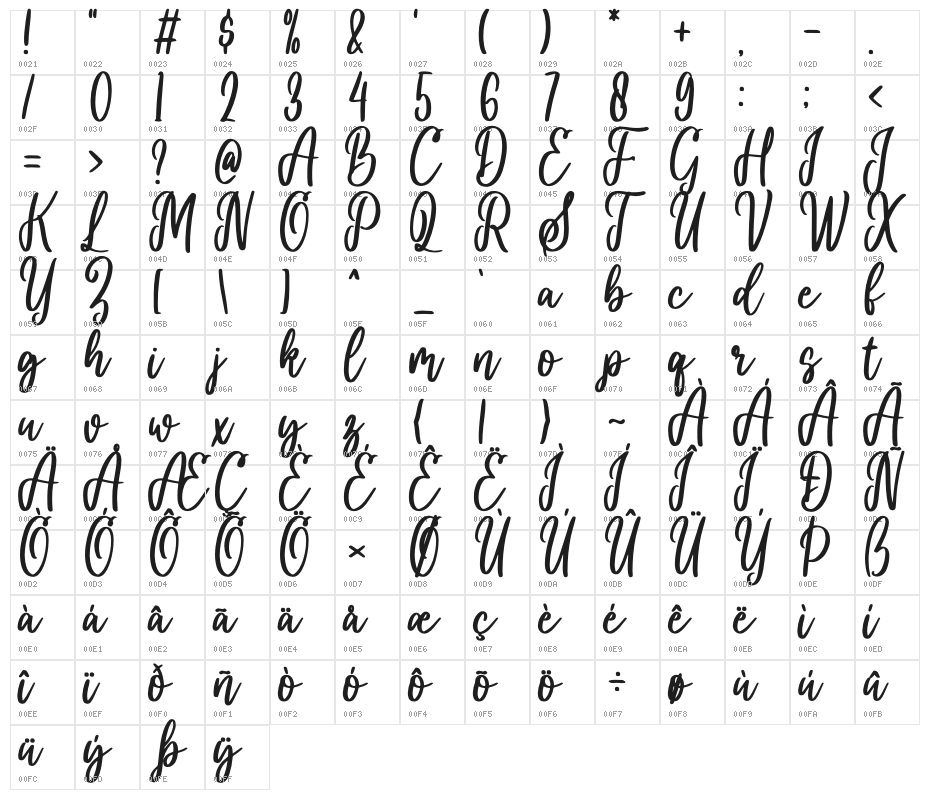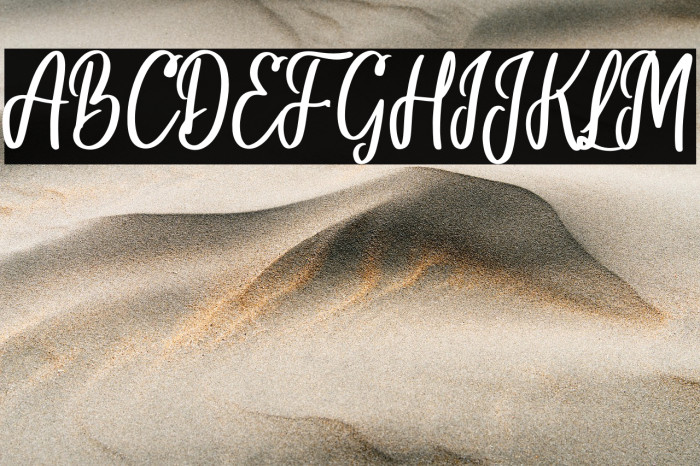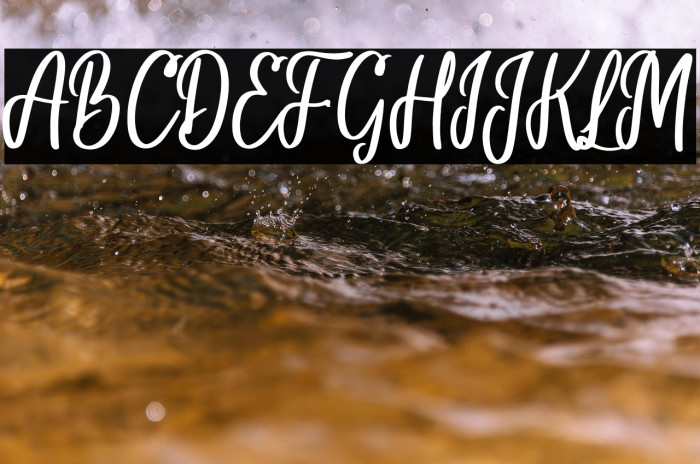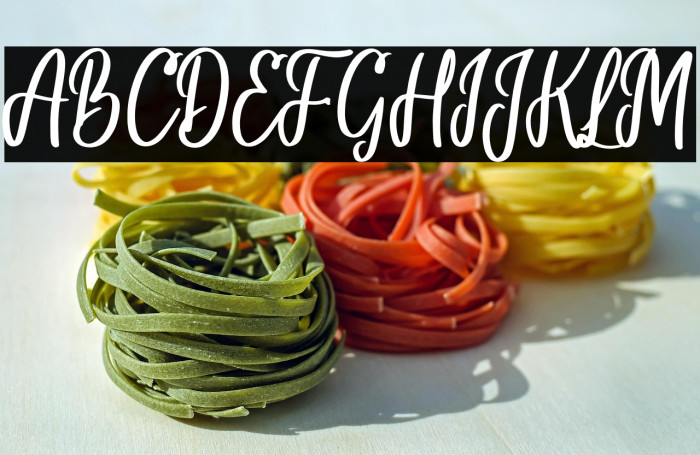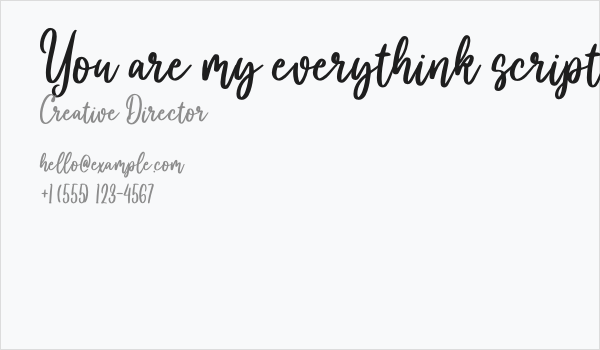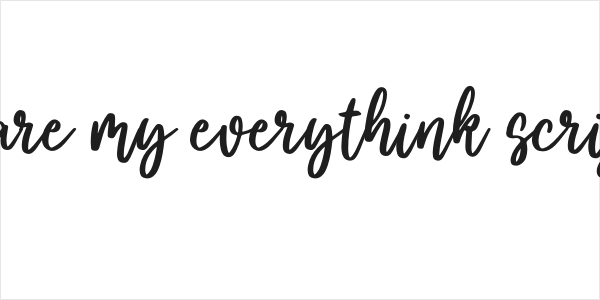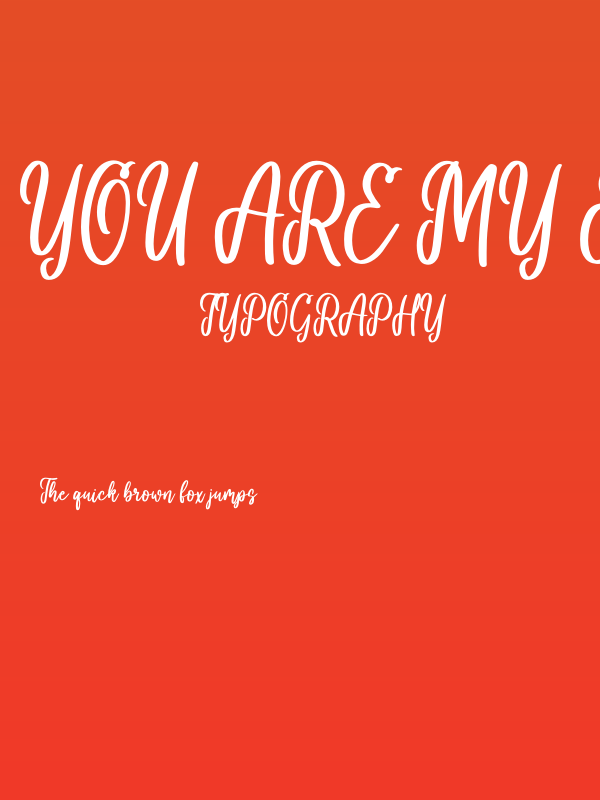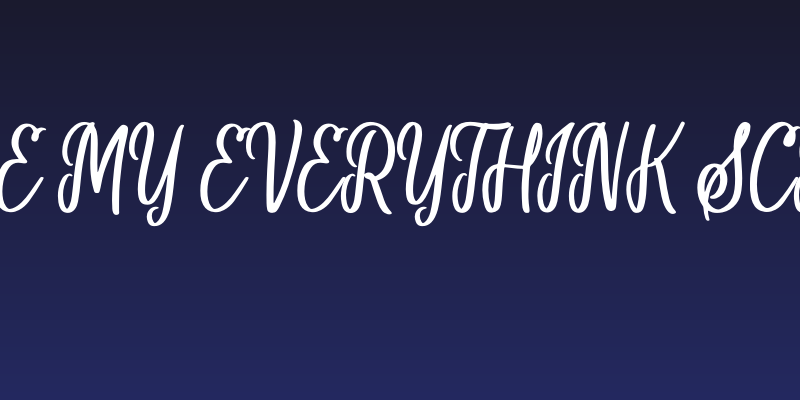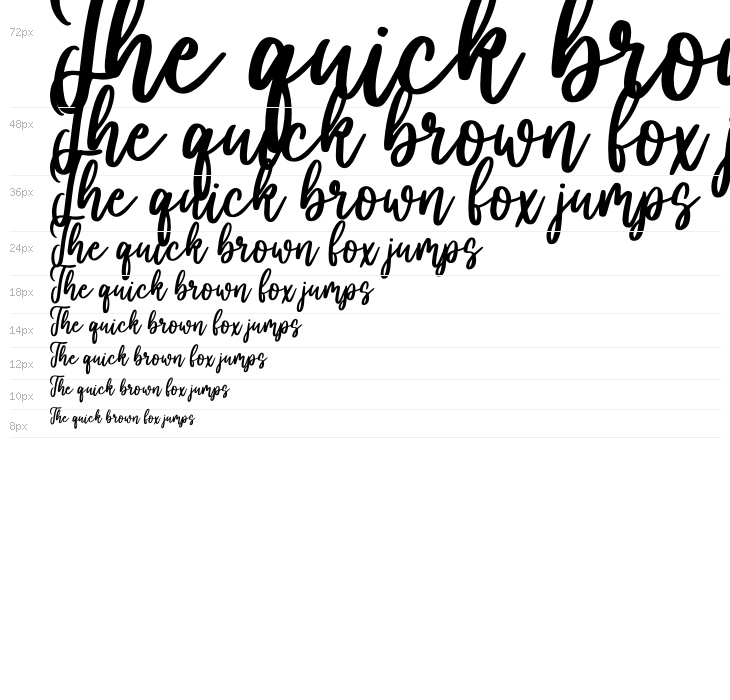
You are my everythink script fo Font
You are my everythink script fo Description
This script font exudes a lively and elegant charm, characterized by its flowing, cursive style. The uppercase letters are tall and graceful, with sweeping curves that give them a sense of movement and fluidity. The lowercase letters maintain a consistent rhythm, with rounded forms and smooth connections that enhance readability. The numerals are bold and slightly slanted, matching the overall dynamic feel of the font. Special characters are thoughtfully designed to blend seamlessly with the letters, adding versatility. This font's bold strokes and smooth curves make it ideal for creating eye-catching designs.
| Proposed Projects | Ideal for wedding invitations, greeting cards, branding, and social media graphics. |